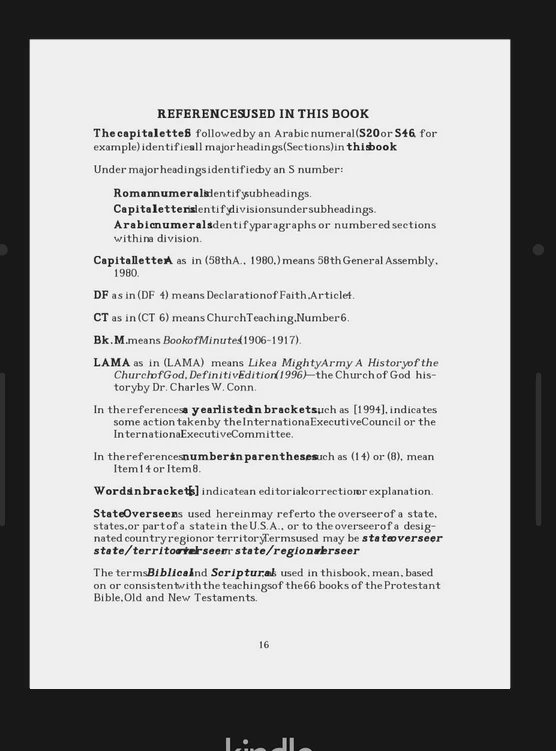
InDesign fonts for commerical use
I have the arial font on my mac which I have used to create a book and an ebook with. I'd like to print my paperback and hardback versions with this font as the headings, body text etc and also embedd the font in my epub file for my ebook.
I was about to mention that Arial is not an Adobe font, but @Peter Spier beat me to it!
Arial is part of the fonts that ship with MacOS X and Windows.
Liberation Sans is similar, has the same metrics, and most users are not going to notice the (mostly) slight form differences. My opinion is that Liberation Sans is a prettier and more elegant version of Arial! And it avoids all potential legal complications.
Keep in mind that Arial is NOT an Adobe supplied font, and you probably don't want to use any system fonts for publication as a general rule.
Can you tell me the reason behind not using system fonts and tell me how I can tell which ones they are? I suspect this is the issue causing my text to squish on my Fixed-Layout ePub file. I have checked that all are OTF but it is still happening.
Fixed layout epub is a crapshoot and highly dependent on the reader application.